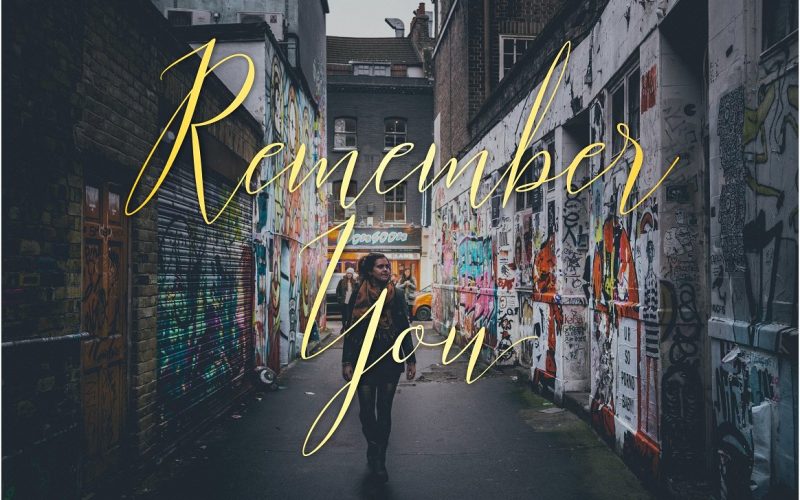
Parlinttons Script Font
This is elegant calligraphy font, designed to convey elegance and style. It is slender, feminine and friendly. A perfect addition to the professional designers font. Introducing Parlinttons Font. Parlinttons can be used to for market design developed at this time, this font has a model Trendy, natural and gentle. is suitable for use in such design style as watercolor, minimalist, flat, modern design, etc. With the combination and some color, you can easily create something exciting and look beautiful for your design.